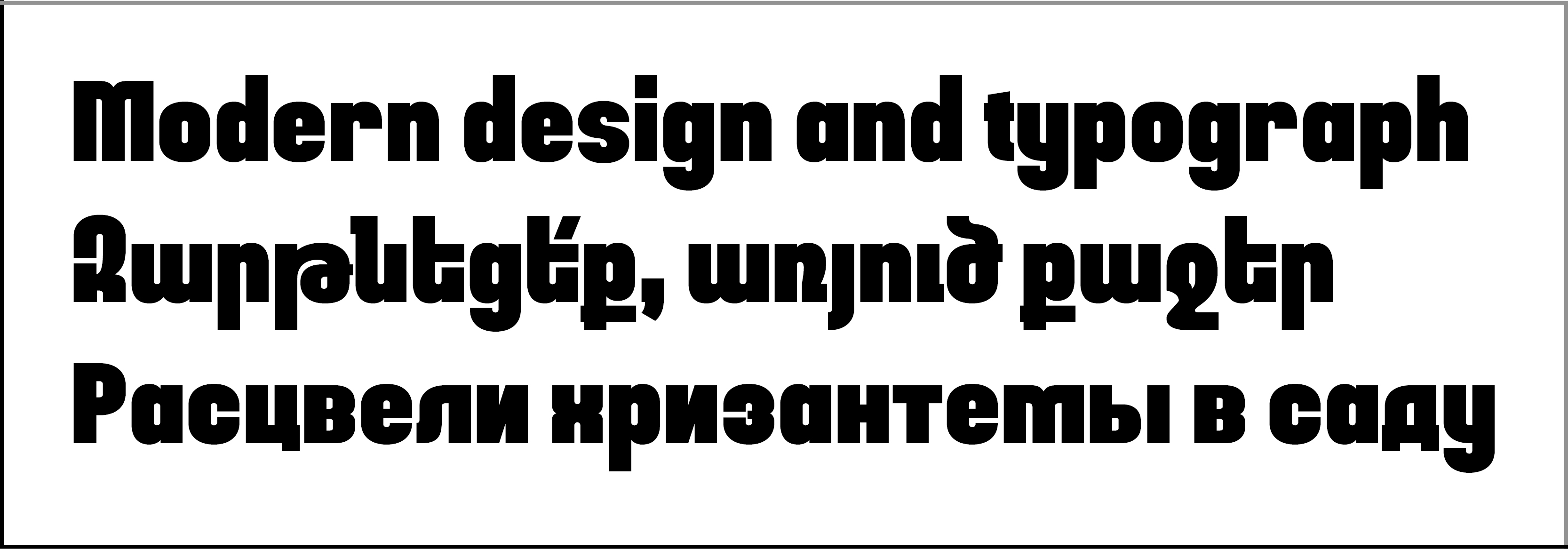
Display typefaces, Edik Ghabuzyan
GHEA Pastar
Design date: 2021
The font family includes Basic Latin, Latin 1 Supplement,
Latin Extended A, Armenian, and Cyrillic alphabet systems.
The font can be used as a poster, display or title font.